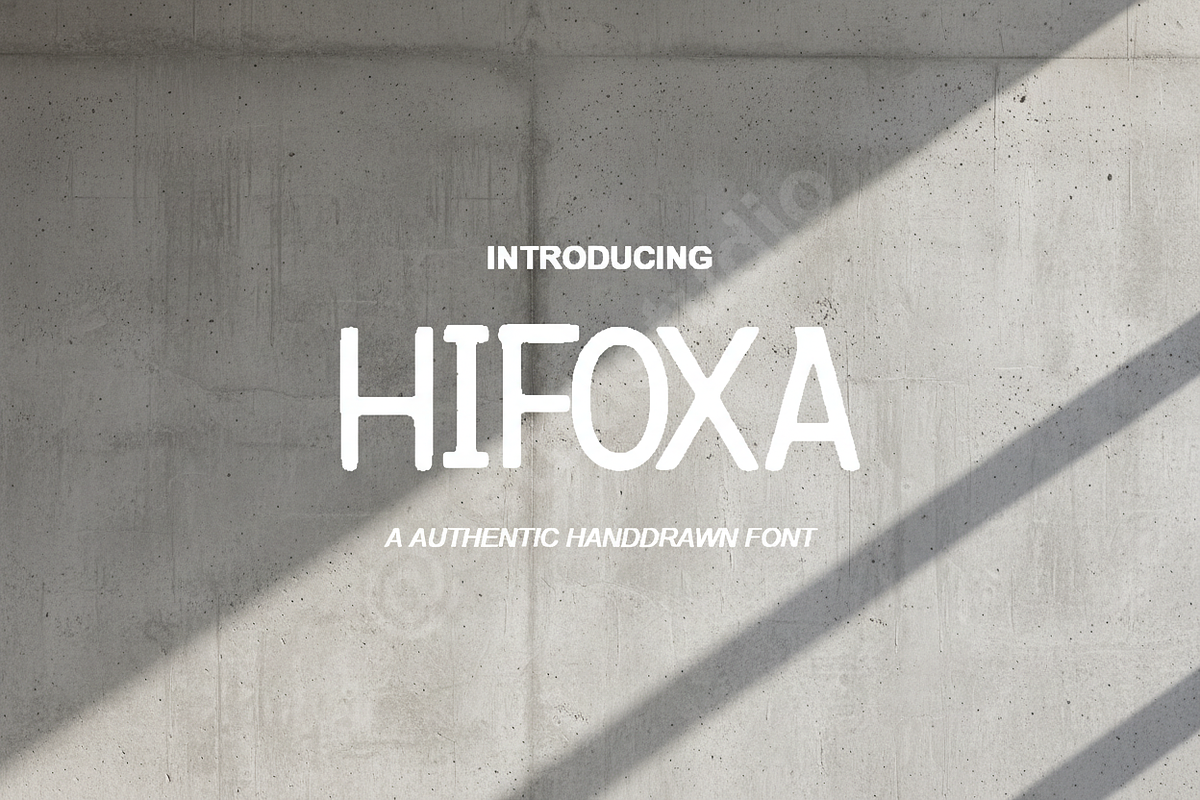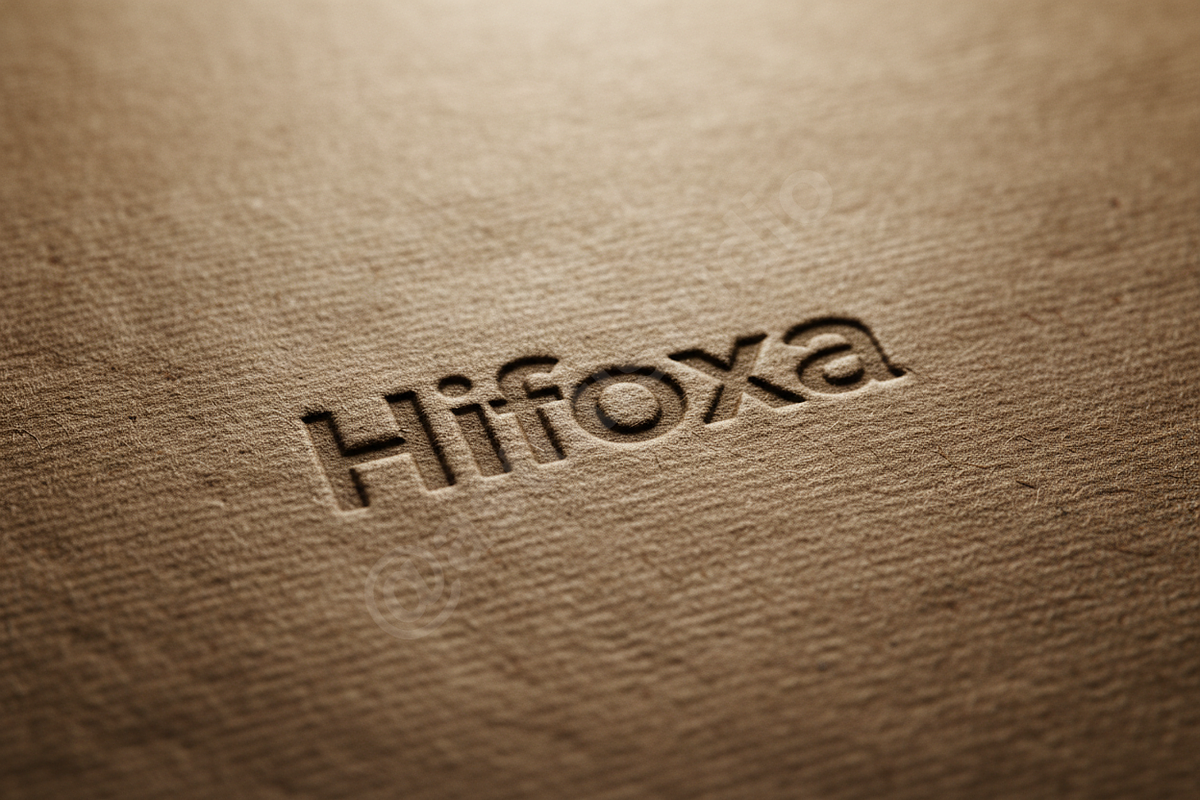
Hifoxa - A Refined Modern Serif for
Hifoxa | A Refined Modern Serif Typeface
Elevate your visual identity with Hifoxa, a high-contrast serif typeface meticulously crafted for high-end aesthetics. Blending classic proportions with modern precision, Hifoxa exudes an air of quiet luxury and editorial sophistication.
This font is ideal for designers seeking a premium touch in luxury branding, high-fashion editorial layouts, high-impact social media graphics, and elegant wedding stationery. Each character is balanced to ensure optimal legibility while maintaining a distinct, artisanal character.
Design Features:
- Elegant high-contrast serifs
- Precise kerning and spacing
- Versatile for both headlines and body text
- Support for multi-language characters
- OpenType features for professional typography